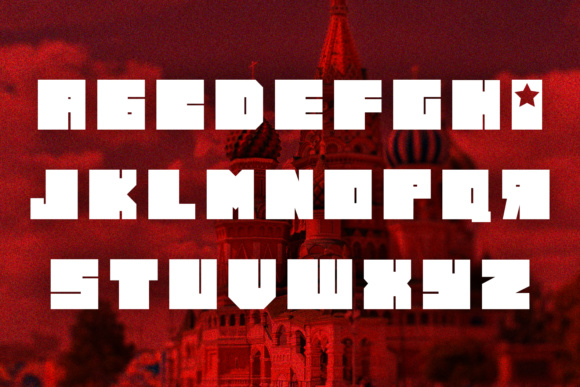
Introduction to Russiano Font
The Russiano is an awesome font family in a blocky old Russian style.
It’s great for posters, banners, headlines, and more .
Key Features of Russiano Font